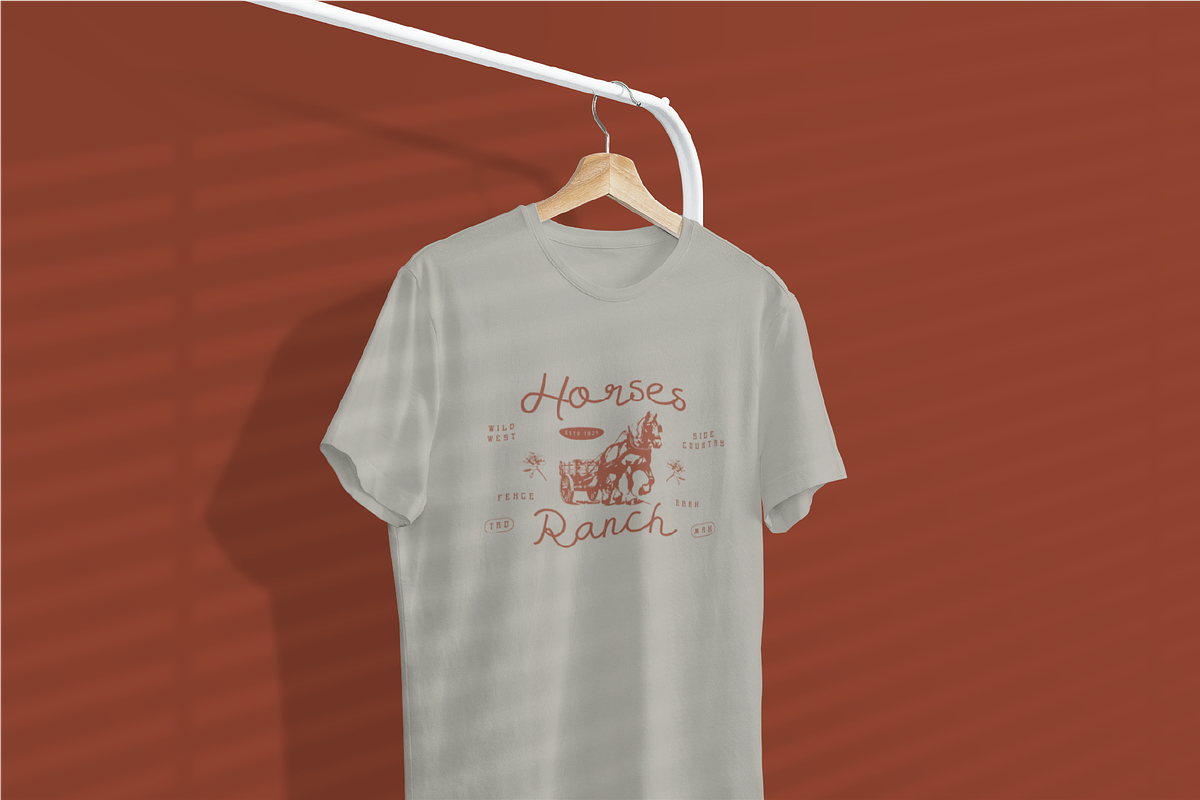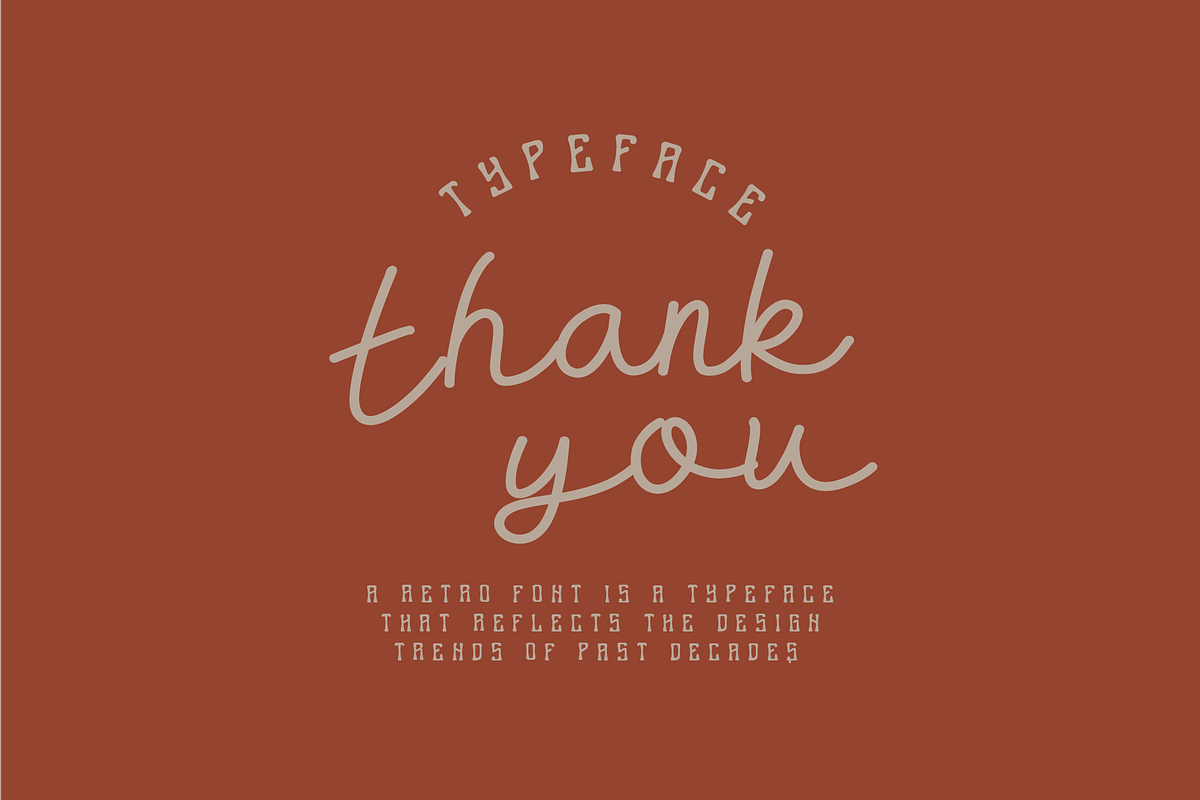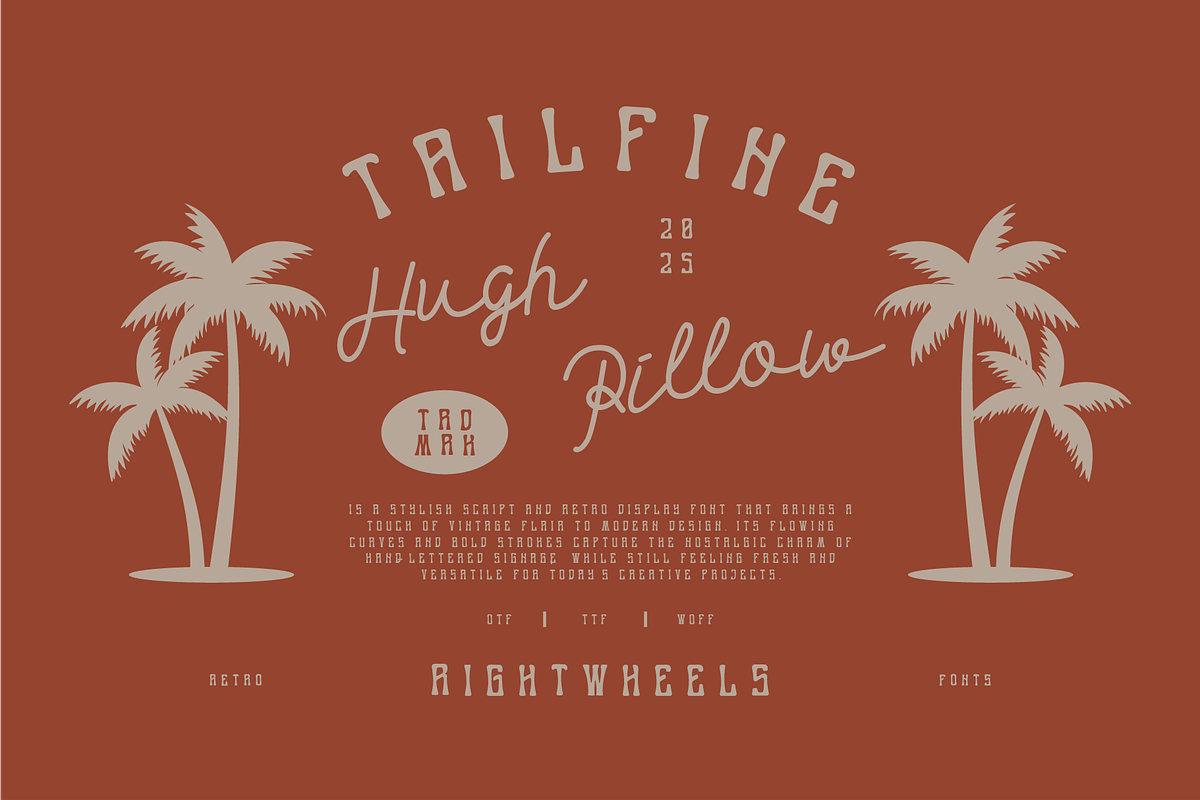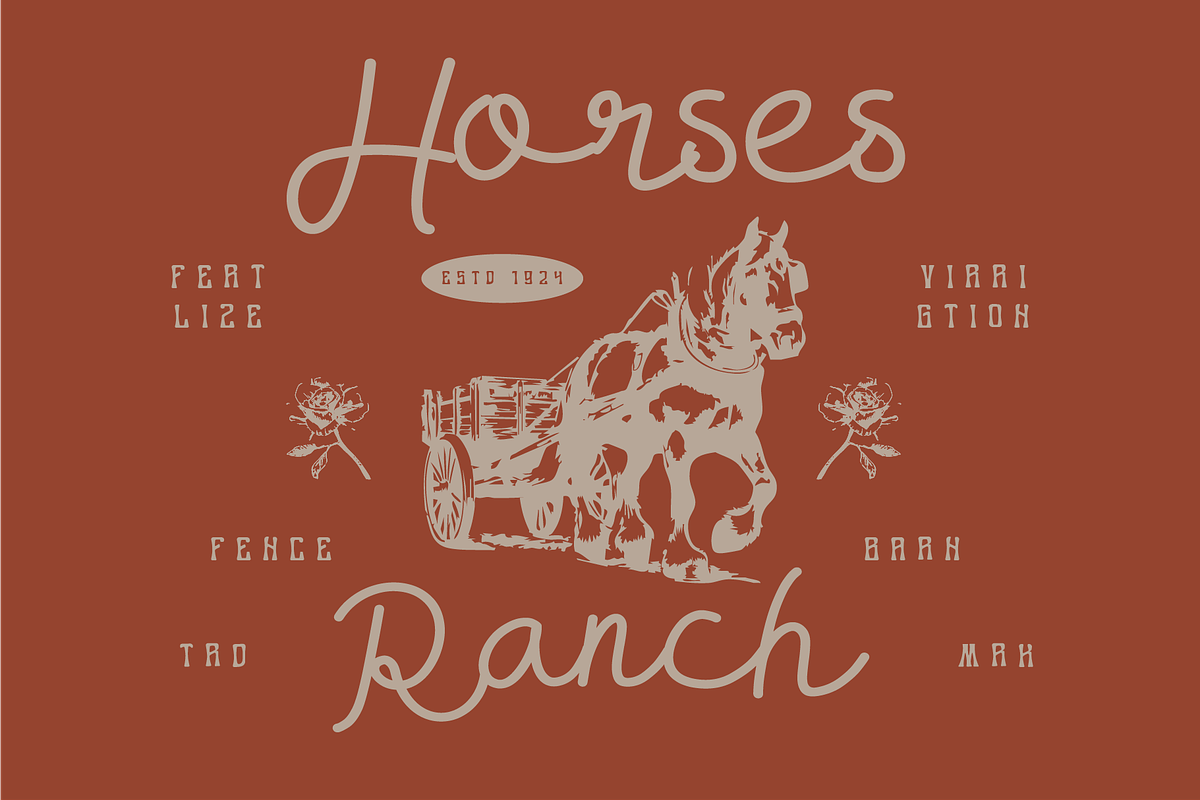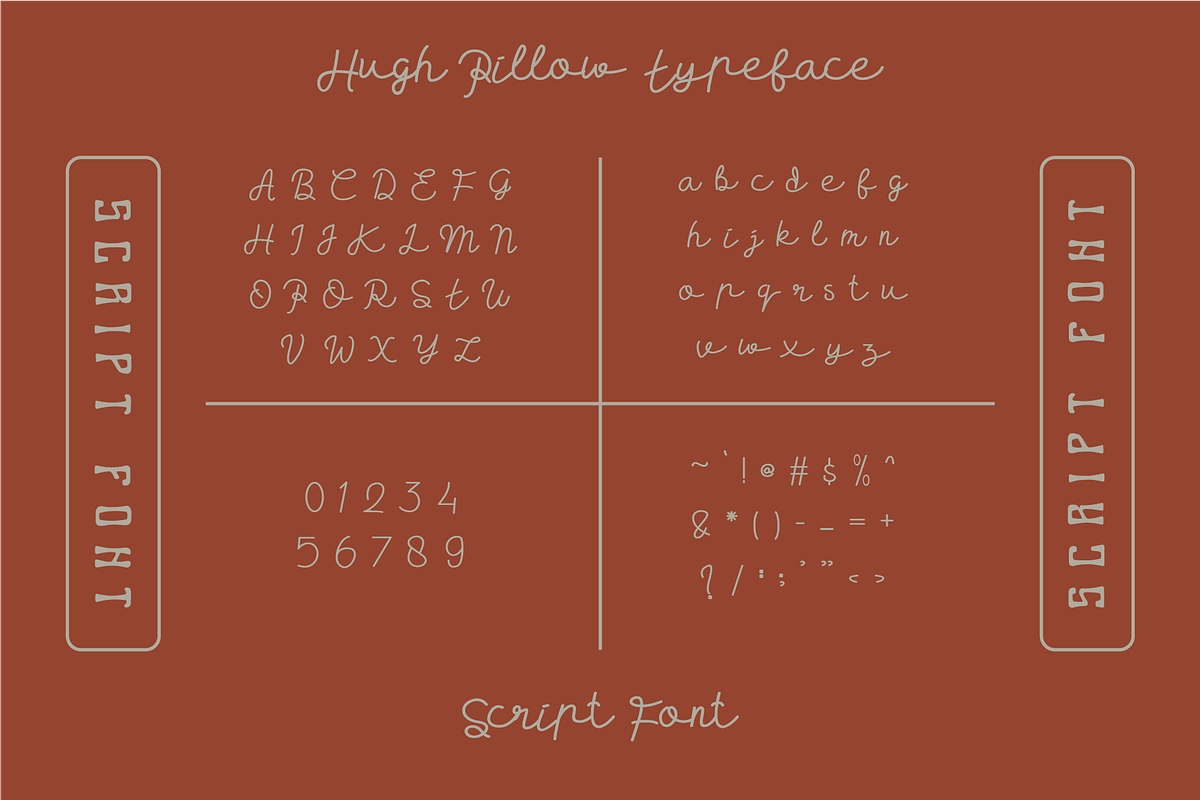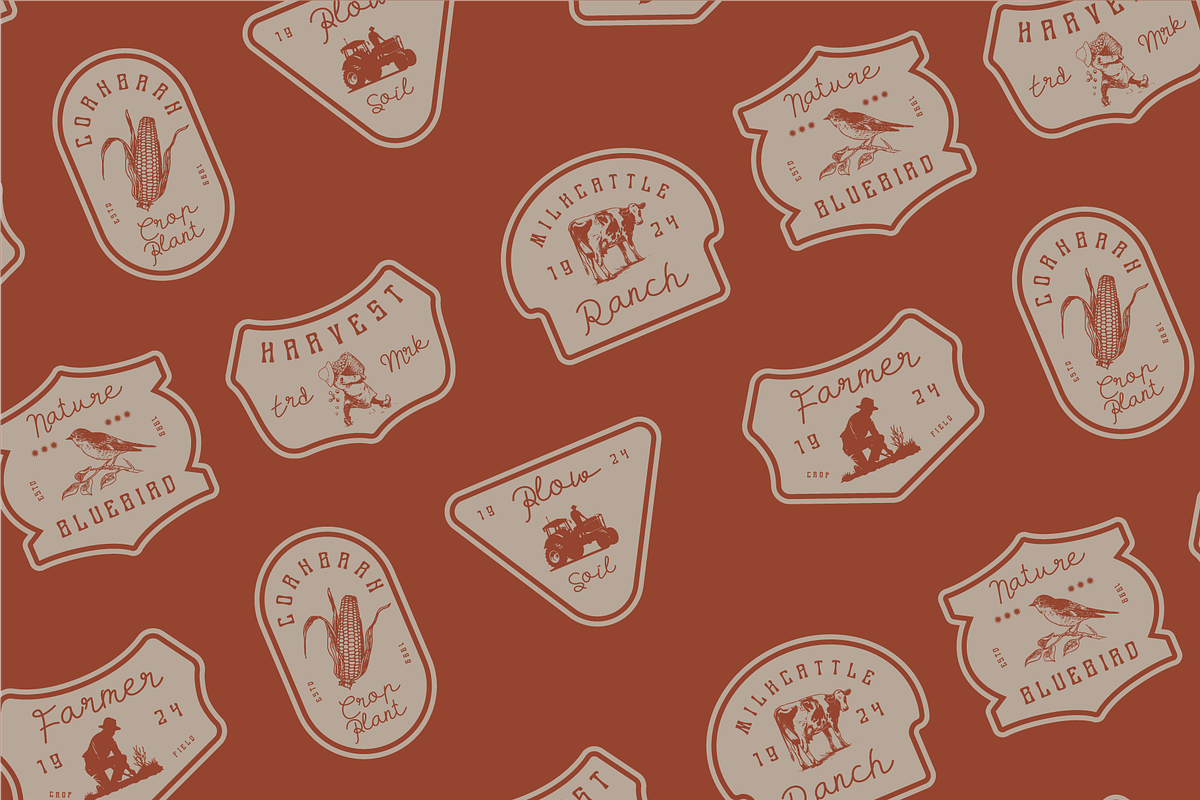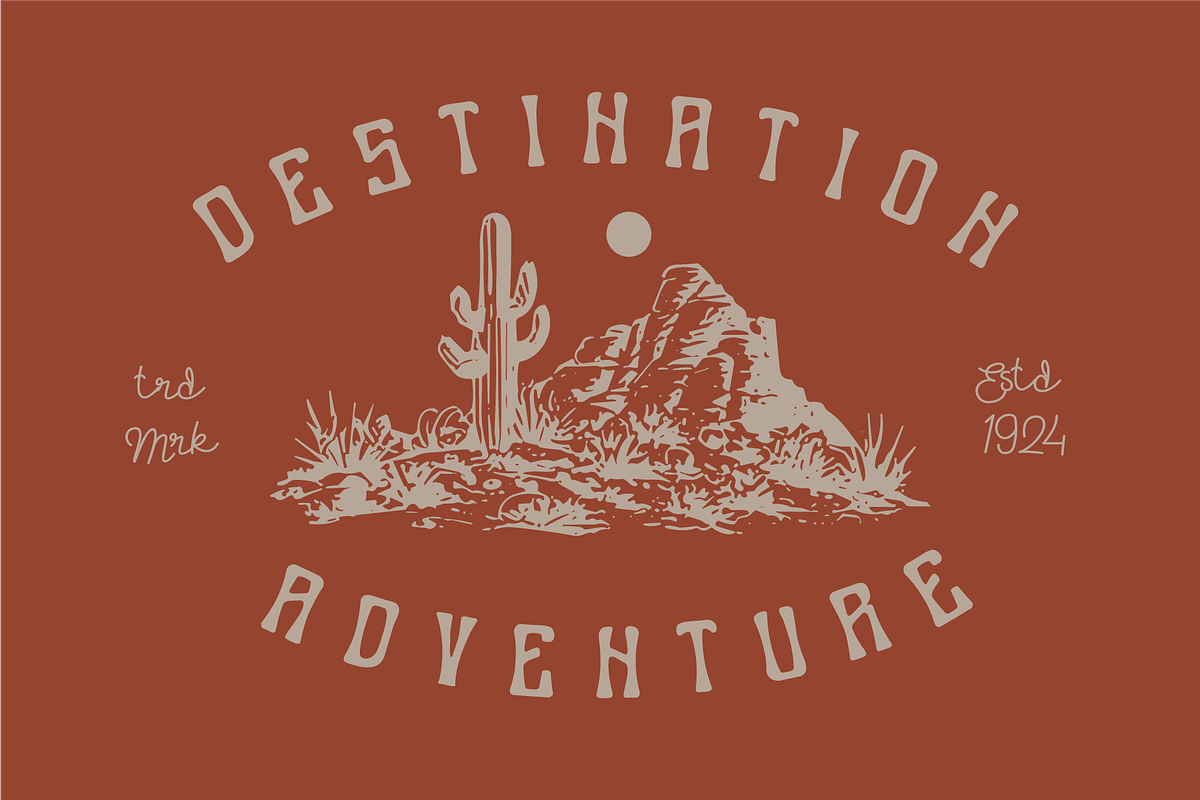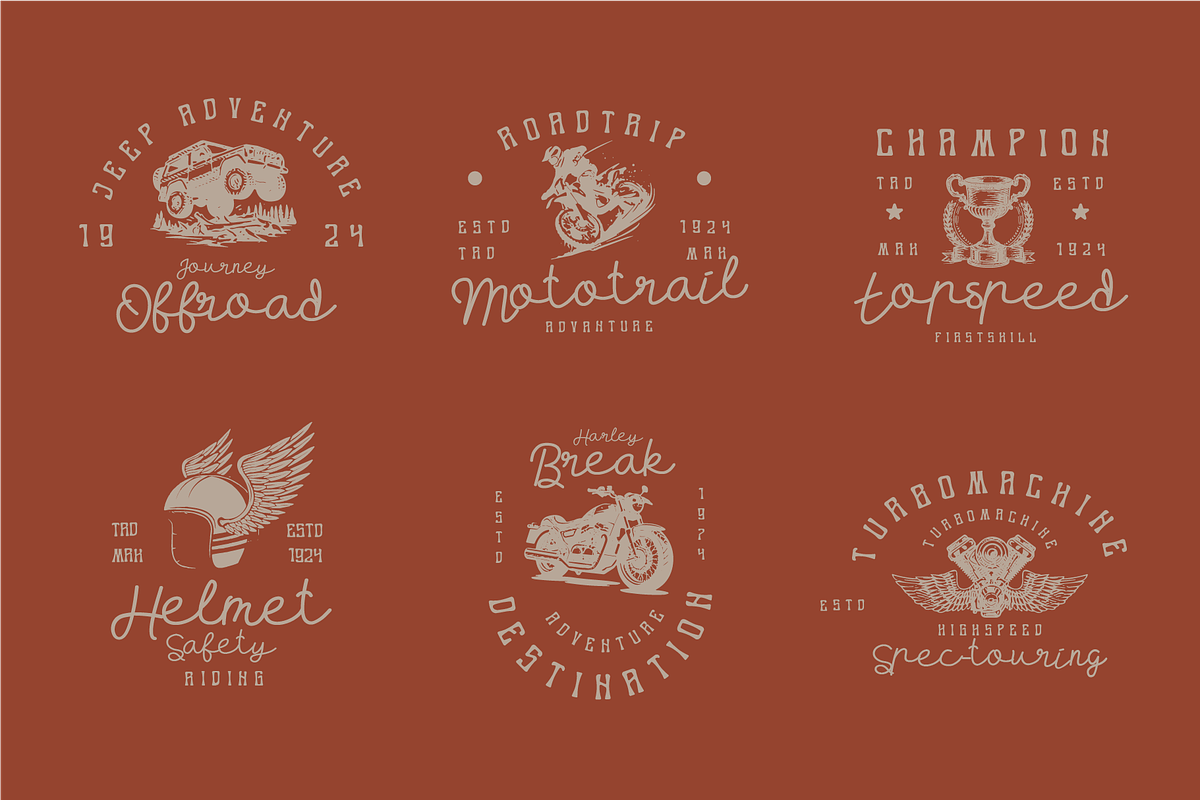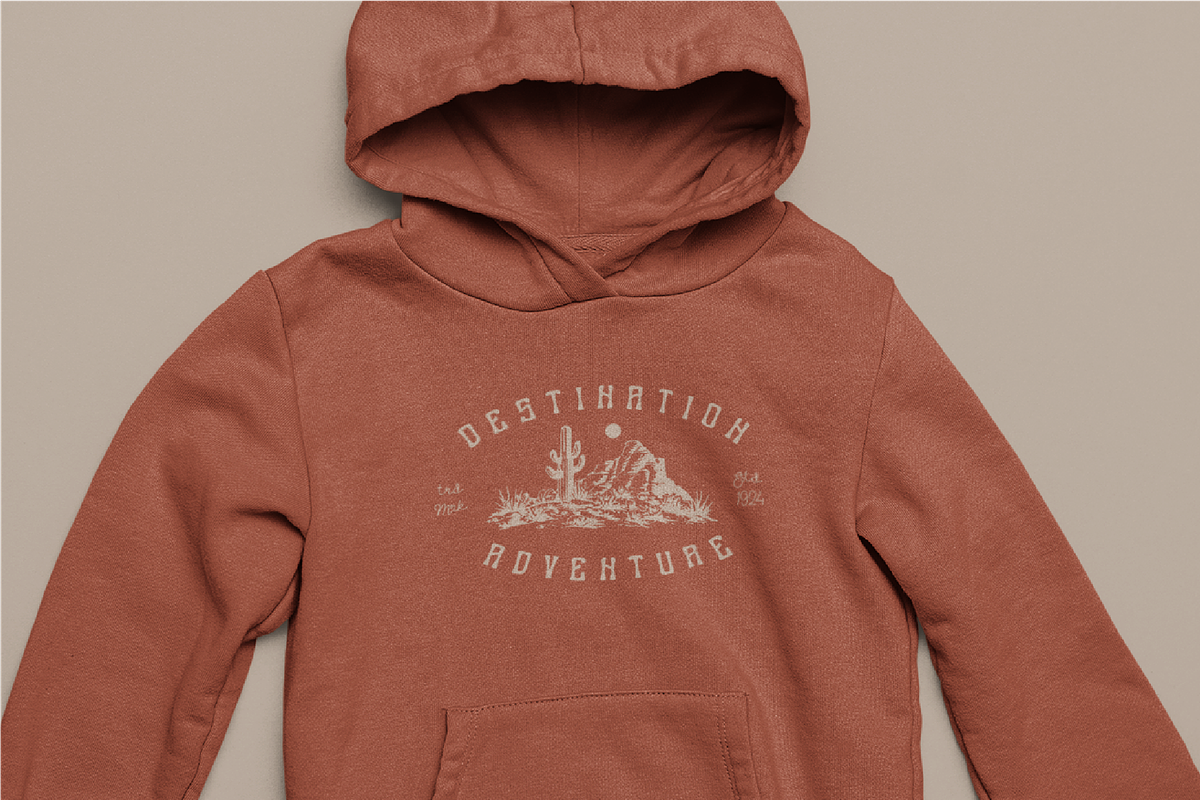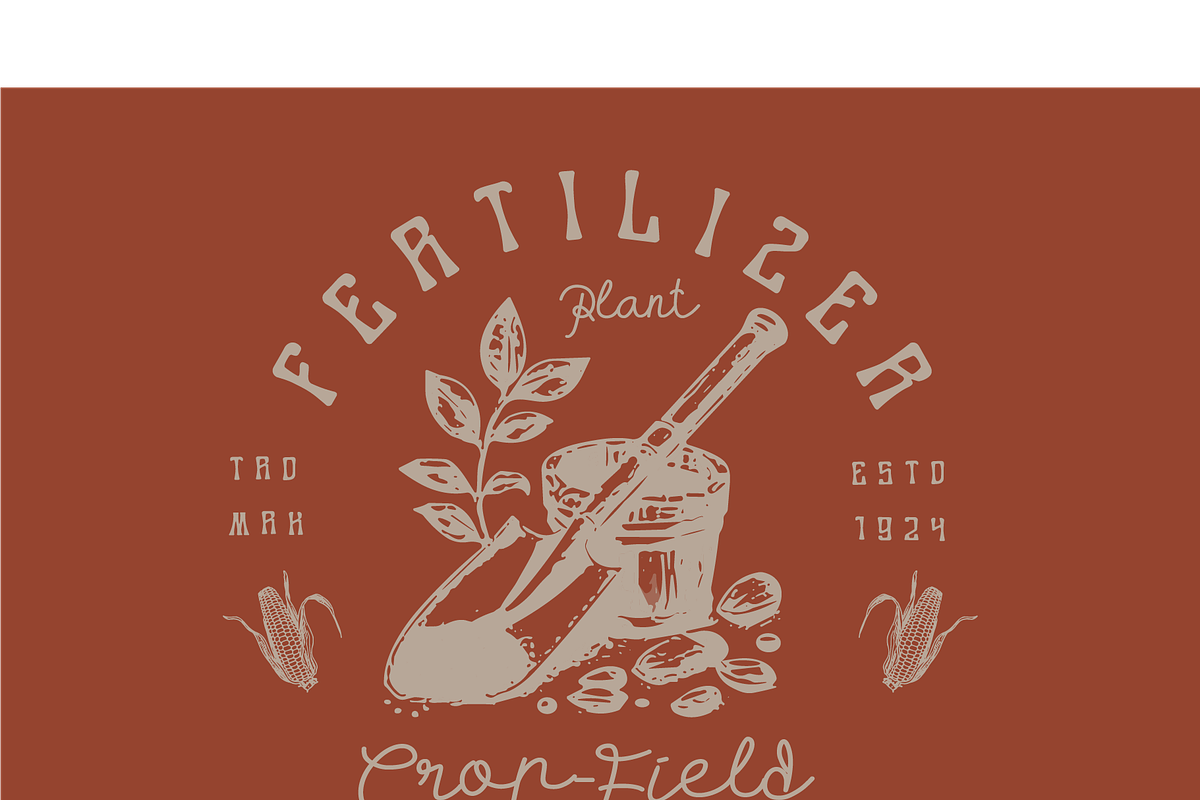
TAILFINE - Retro Duo Font
Tailfine is a retro-inspired display font with a vintage concept, designed to evoke the charm and nostalgia of classic typography. Its bold and unique letterforms make it perfect for projects that aim to capture a timeless, old-school aesthetic. Whether you're working on branding, posters, or packaging, Tailfine brings a touch of vintage flair to your design, while maintaining readability and style.